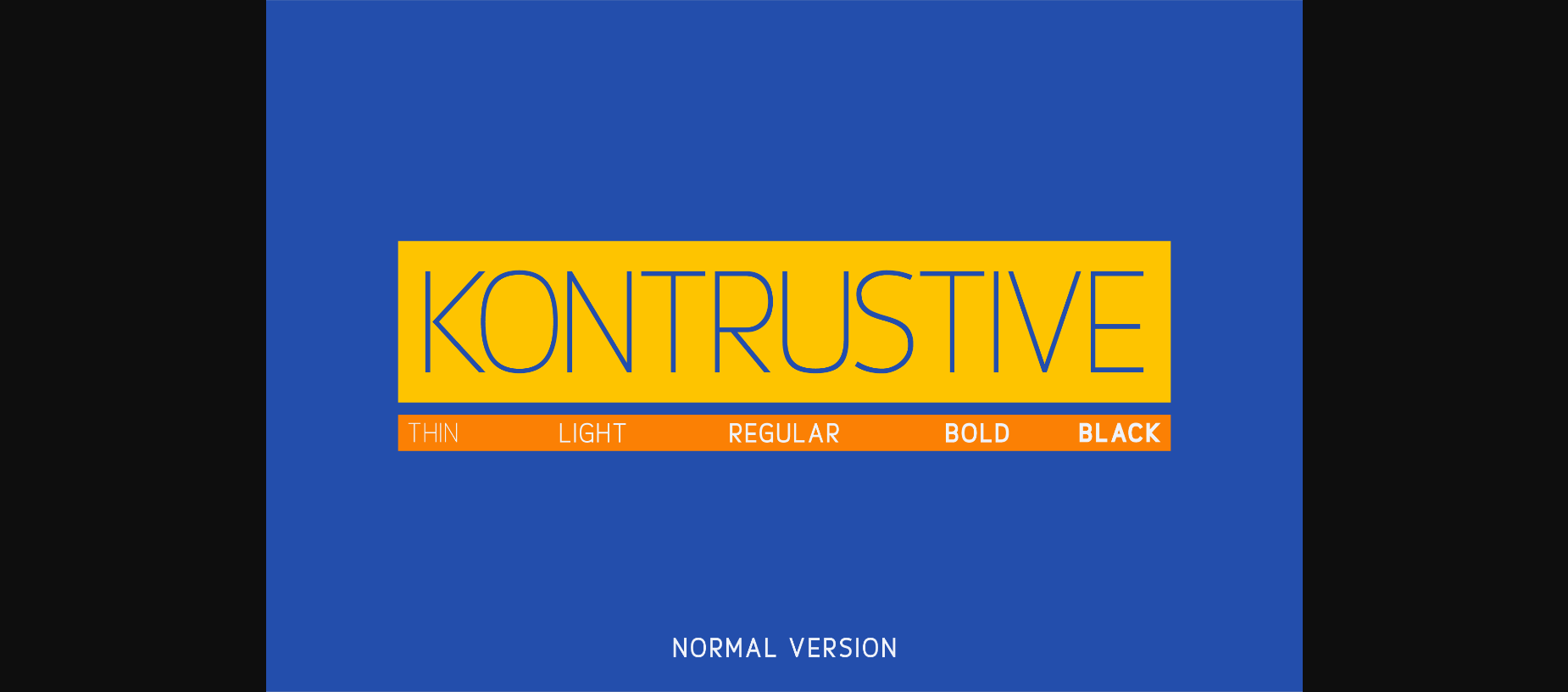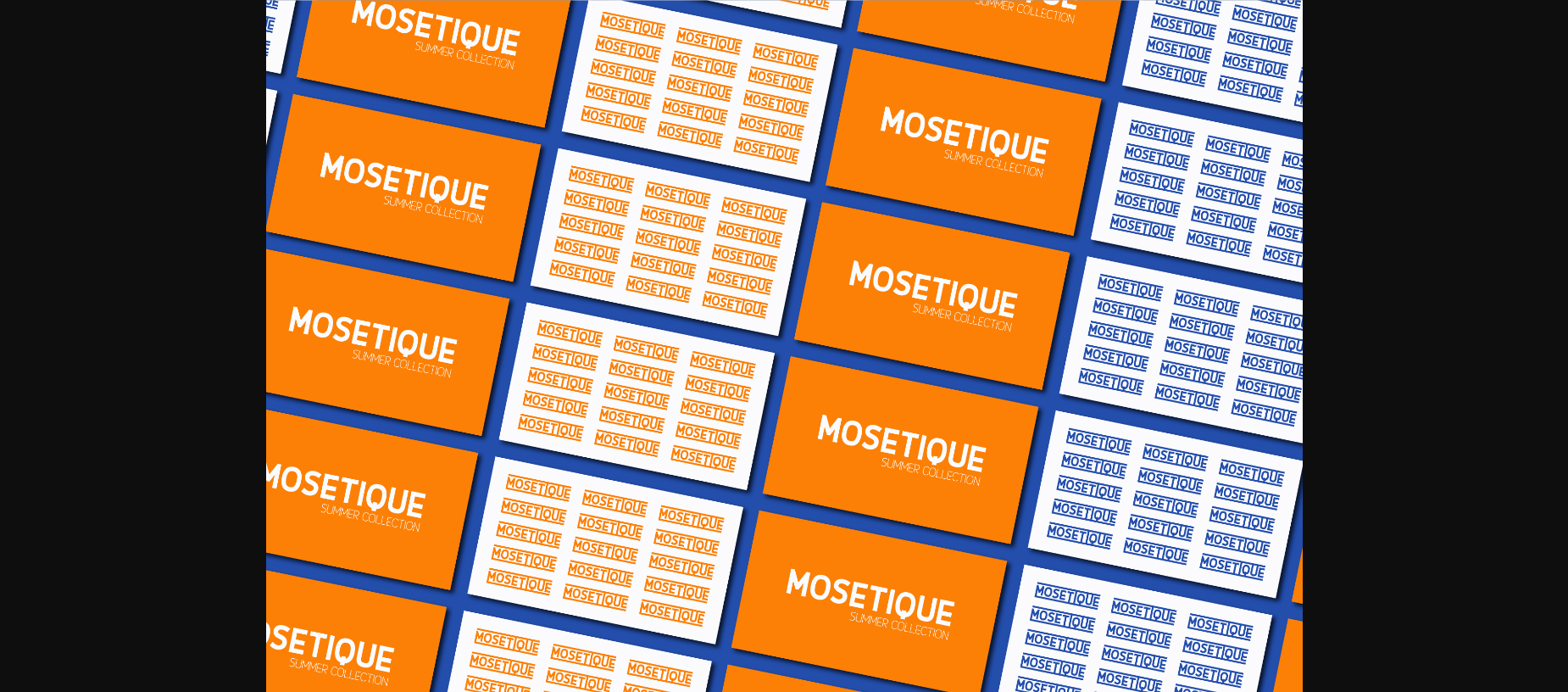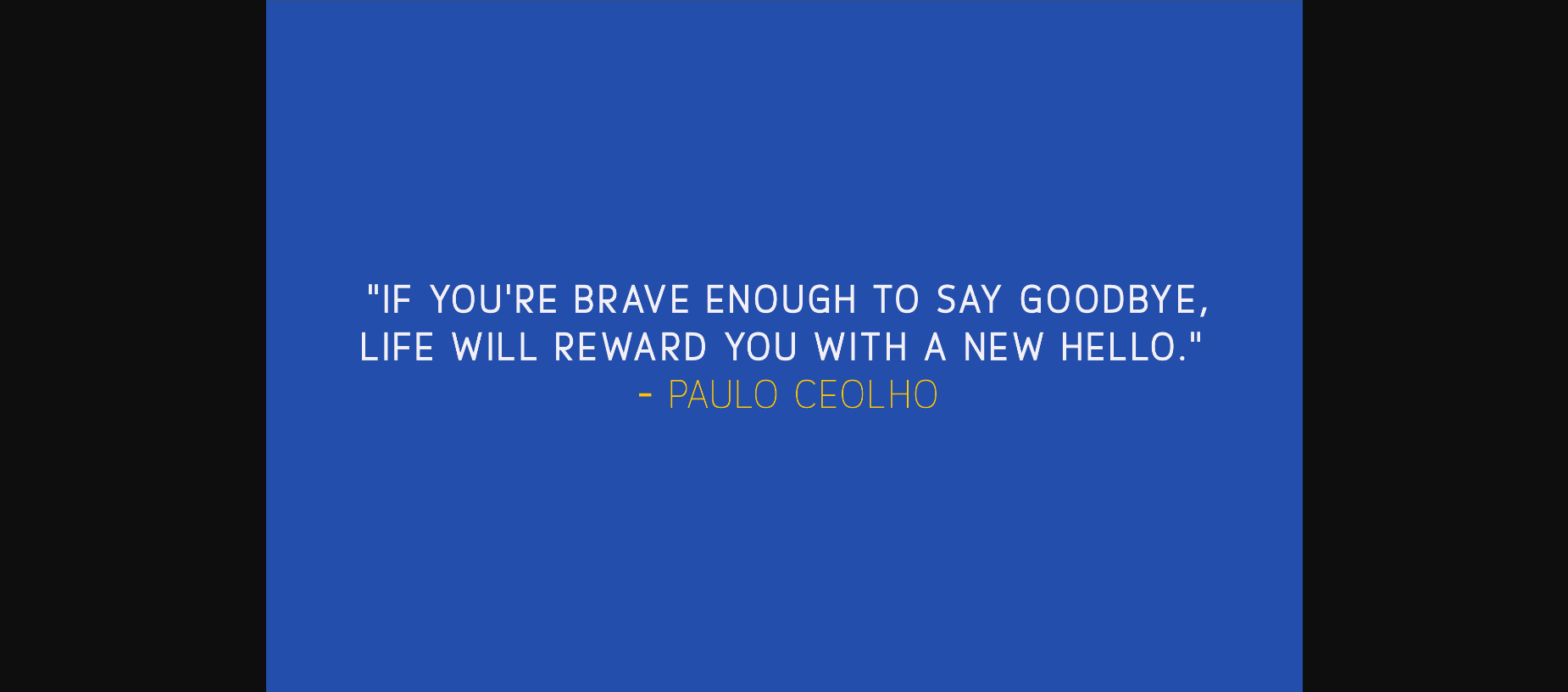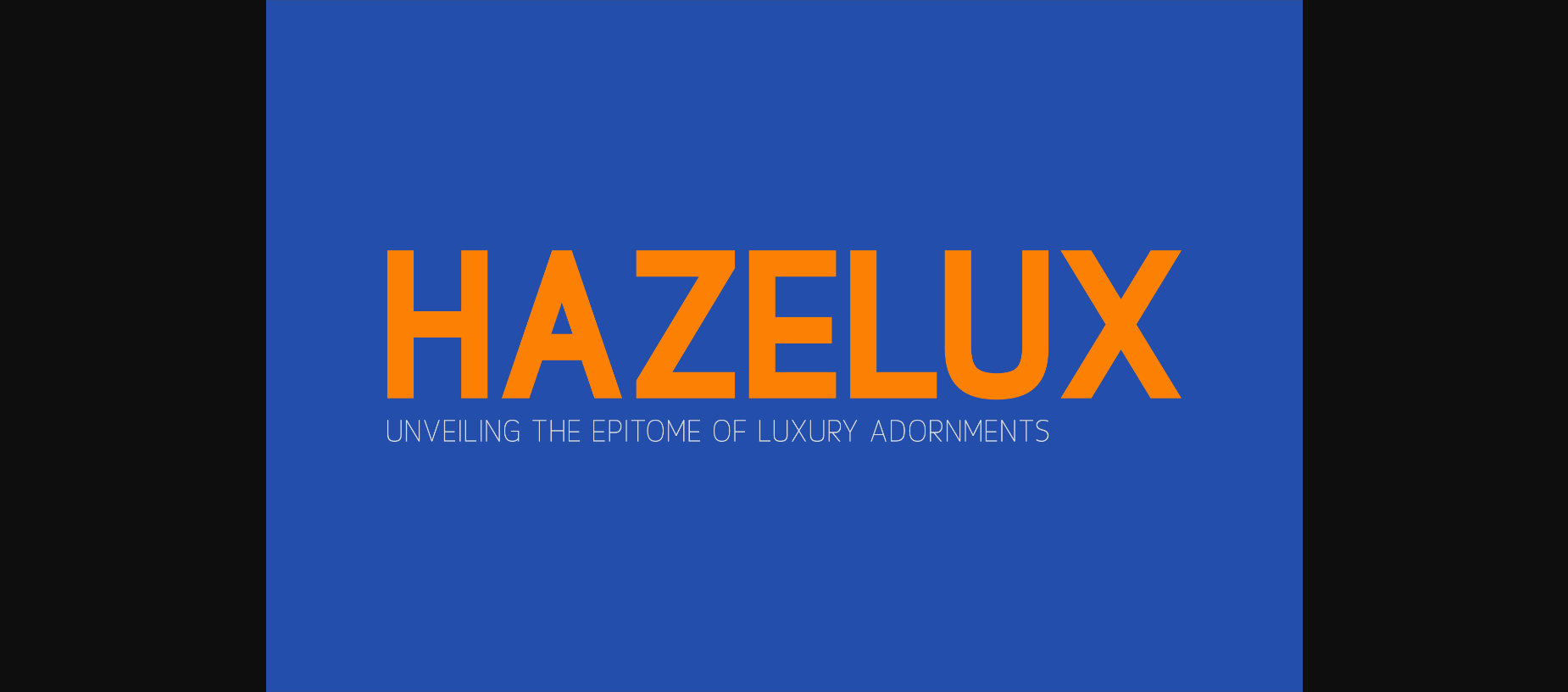
About Kontrustive Font
the Kontrustive is an embodiment of the elegance and minimalism font family. With 5 distinct weights, this sans-serif collection seamlessly combines modernity and luxury. Crafted with utmost precision, it effortlessly enhances any project, whether it be a magazine, logo, or film poster. Discover the perfect balance of sophistication and simplicity, allowing your designs to exude timeless charm. Unlock the power of our font family today.